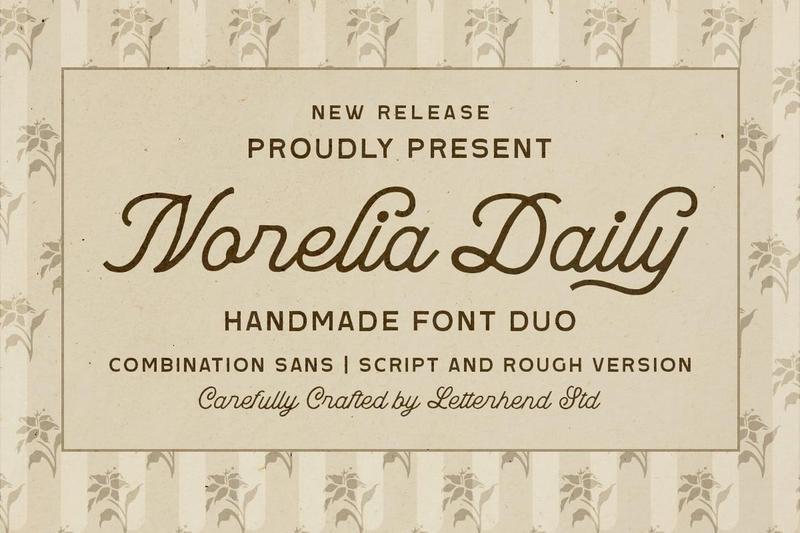
**Norelia Daily**feels like a warm note written in a favorite journal and tucked between the pages of a well-loved book. Combining a graceful monoline script with a clean companion sans, it brings a relaxed vintage charm that feels both familiar and timeless.
*Uppercase & lowercase
*Script & Sans
*Alternates Character